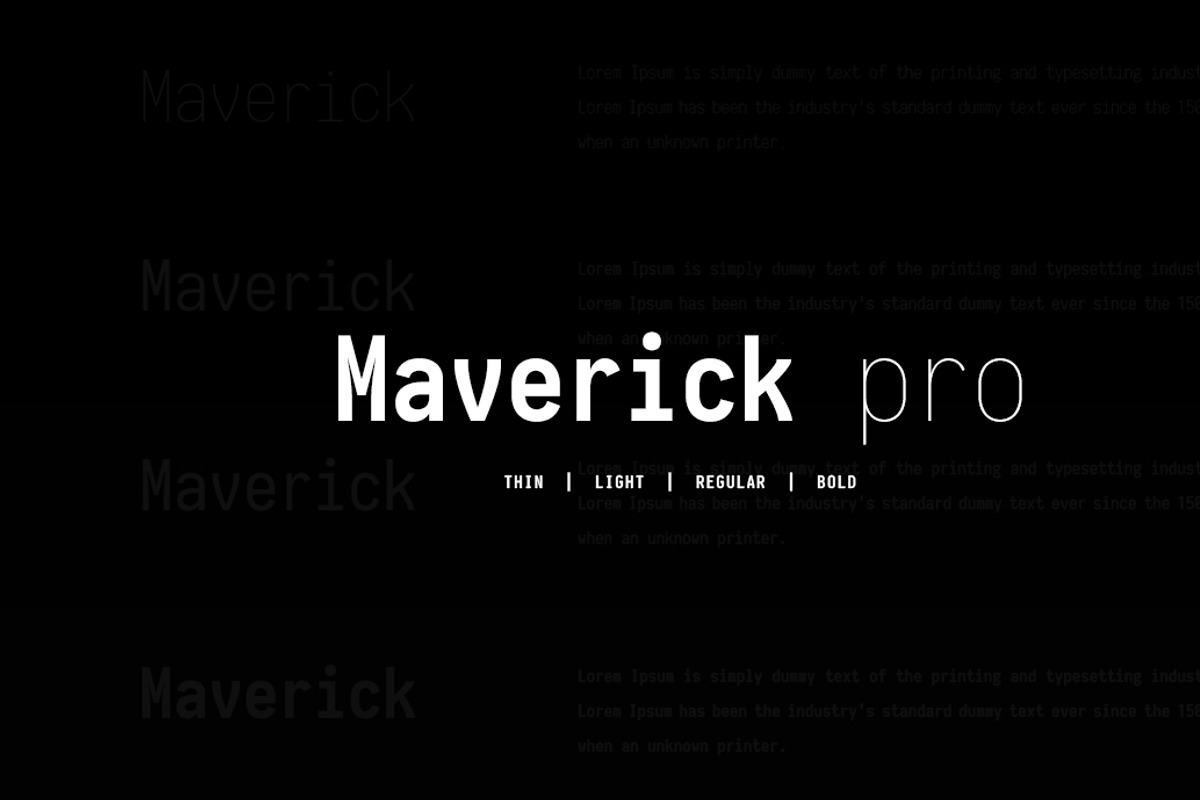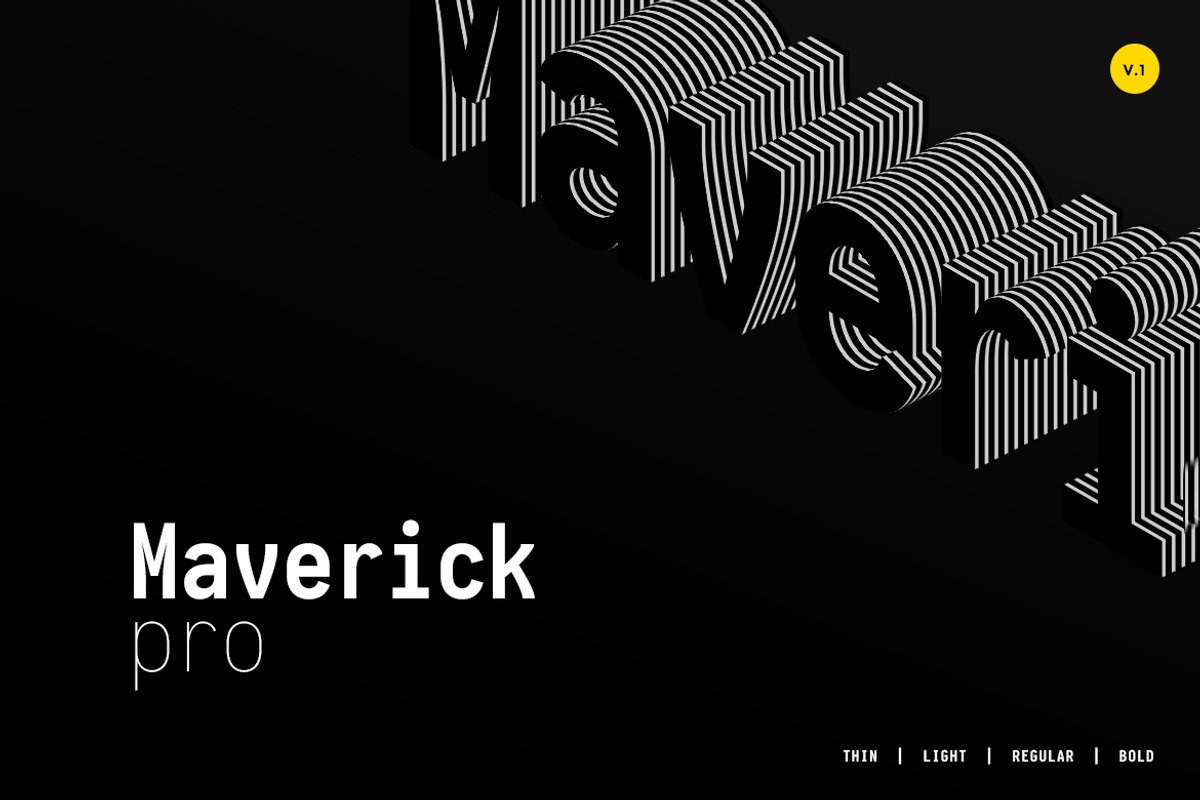
Maverick - Modern Webfont
Maverick Pro Typeface
Maverick Pro is perfect for branding projects, logo, wedding designs, social media posts, advertisements, product packaging, product designs, photography Brandings, invitation and Typography Designs.
- Maverick Thin
- Maverick Light
- Maverick Regular
- Maverick Bold
Maverick - Modern Webfont by Webhance Studio fits naturally into Branding, posters, packaging, typography.